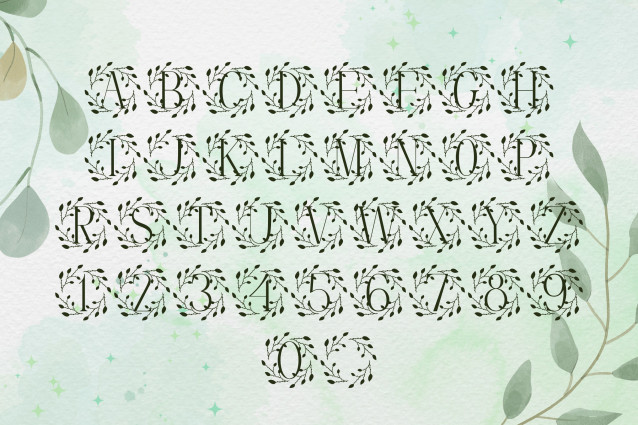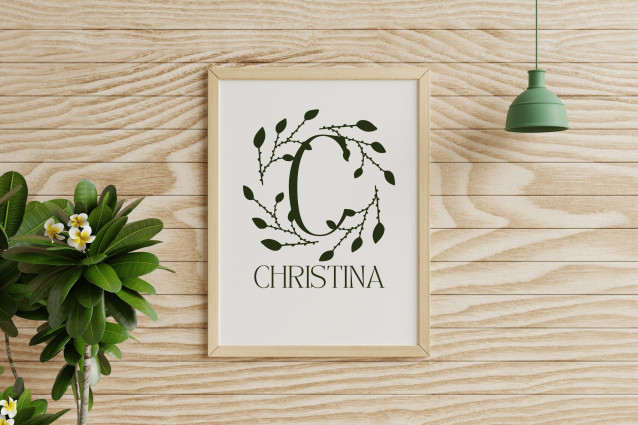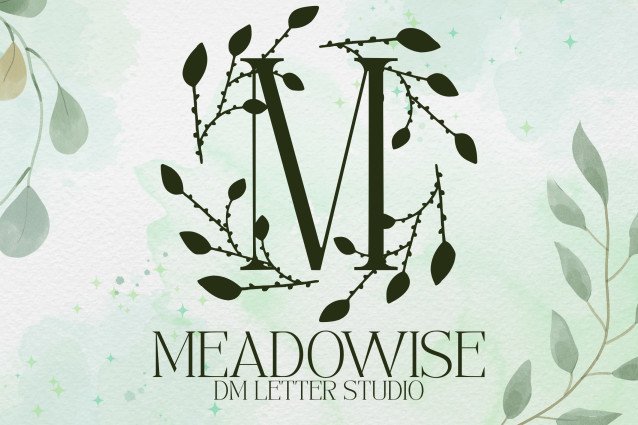
Meadowise Font
Meadowise Font is a beautifully flowing handwritten script font inspired by tranquil meadows and gentle breezes. Featuring graceful ligatures and a soft organic style, Meadowise adds a touch of charm and authenticity to any design. Whether you’re creating wedding invitations, branding, or social media graphics, this font brings a peaceful, handwritten warmth to your work.